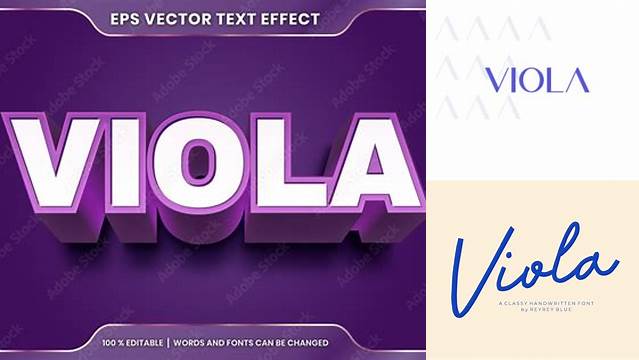
Hey everyone! Are you on the hunt for a beautiful and versatile font? Well, look no further because today, we're diving deep into the wonderful world of the Viola Free Font Download! This font is a real gem, perfect for everything from crafting stunning headlines to adding a touch of elegance to your designs. In this article, we'll explore everything you need to know about the Viola font, including where to grab it for free, how to use it, and some killer design tips to make your projects pop. So, buckle up, get ready to unleash your creativity, and let's get started!
Viola Font: A Deep Dive into Its Features and Characteristics
Alright, guys, let's start with the basics. The Viola Free Font Download is more than just a font; it's a statement. Its design is characterized by clean lines, elegant curves, and a modern aesthetic that makes it incredibly adaptable. The font typically comes in various weights and styles, giving you a ton of options to play with. You'll find regular, bold, italic, and sometimes even condensed versions, making it suitable for a wide range of applications. Whether you're designing a website, creating marketing materials, or working on a personal project, the Viola font can add a touch of sophistication and readability. One of the coolest features is its versatility. You can use it for headlines, body text, and even logos. Its legibility ensures that your message is clear and easy to understand, while its stylish appearance keeps your design looking fresh and modern. Think of it as the little black dress of fonts – always in style and always appropriate. The design is very well thought out, ensuring that all the characters are well-proportioned and aesthetically pleasing. This attention to detail is what sets the Viola font apart and makes it a top choice for designers. The careful craftsmanship behind the font’s creation ensures that it maintains its elegance and readability across all applications. Choosing the right font can significantly enhance the impact of your design projects. The Viola font's inherent qualities make it an excellent choice for any designer, especially when prioritizing aesthetics and impact.
Understanding the Aesthetics of the Viola Font
Now, let's dive a bit deeper into the aesthetics of the Viola font. This font is all about balance and harmony. The designers have carefully crafted each letter to ensure that they work together seamlessly. The curves are smooth, the lines are clean, and the overall appearance is incredibly pleasing to the eye. This makes it a fantastic choice for projects where visual appeal is key. When you download the Viola Free Font, you're not just getting letters; you're getting a complete design package. The attention to detail in the creation of the font is really something. The designers have thought about every aspect, from the thickness of the strokes to the spacing between letters. The result is a font that is both beautiful and functional. The font's aesthetic appeal lies in its ability to convey a sense of sophistication without being overly complicated. It strikes a perfect balance between elegance and modernity, making it suitable for a broad spectrum of design projects. Whether you're working on a minimalist website or a vibrant marketing campaign, the Viola font is a versatile choice. Its clean lines and well-defined letterforms contribute to its high readability, ensuring that your message is both stylish and easily understood. Furthermore, the font’s harmonious design ensures that it complements other design elements, providing a cohesive and visually appealing look. For those who appreciate meticulous design, the Viola font is a perfect choice. This attention to detail is a hallmark of the font, ensuring that the overall presentation is of the highest quality. The font's aesthetics are not just about looks; they also significantly improve the user experience. Using the Viola font in your projects shows your dedication to quality and good design principles.
Key Characteristics That Define the Viola Font
Let's get down to brass tacks and discuss the specific characteristics that make the Viola font stand out from the crowd. When you consider a Viola Free Font Download, you're dealing with a font that is defined by its modern yet timeless appeal. The primary characteristic of this font is its versatility. Its ability to adapt to various design needs sets it apart. The design is clean and well-defined, ensuring that your text remains readable, regardless of the application. Another key characteristic is its excellent legibility. This is important because it allows your audience to quickly and easily understand your message. Designers have ensured that each letterform is perfectly balanced. This means that the individual characters and the overall text appear harmonious. Moreover, the font typically includes a variety of weights and styles, which provides you with ample options to match your design requirements. Its inherent elegance allows it to work seamlessly with a wide range of design styles, from minimalist to more elaborate designs. The careful attention to detail in the creation of the Viola font is evident in every aspect, from the smooth curves to the consistent spacing. The careful design ensures that it retains its visual appeal and remains a top choice for designers. The character set includes all the necessary glyphs and symbols to accommodate diverse design needs. This comprehensive set ensures that the font meets the varied demands of any design project. Lastly, the Viola font is a solid choice for projects where readability and aesthetic appeal are paramount.